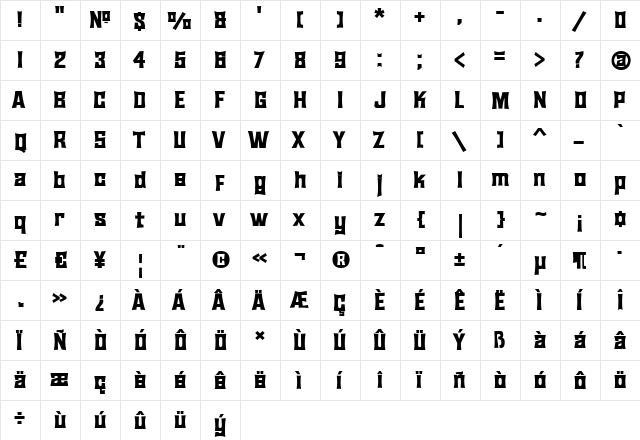
JMH Bronze Bold
Design Context for JMH Bronze Typeface
JMH Bronze takes a measured approach to typography — its balanced proportions and neutral character make it a reliable workhorse for both digital and print work. The heavy weight commands attention and anchors typographic hierarchies.